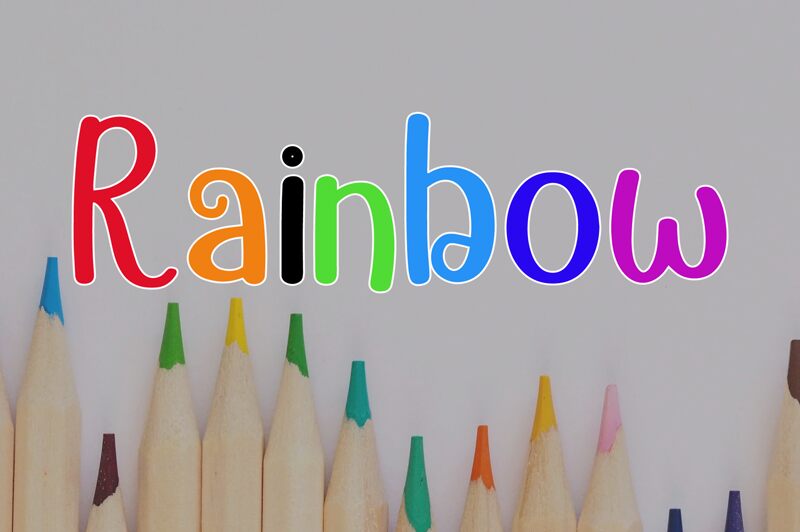
Rainbow, a delightful creation by Danil Studio, is a charming and semi-light font that adds a touch of whimsy to any project.
With its cute handwritten style, Rainbow is perfect for children's books, playful invitations, and vibrant party decorations. This versatile typeface brings life and color to greeting cards, scrapbooks, and personalized stationery. Its graceful curves and unique character make it an excellent choice for branding materials such as logos or packaging designs.
Let Rainbow illuminate your creations with its cheerful personality and enchanting appeal.